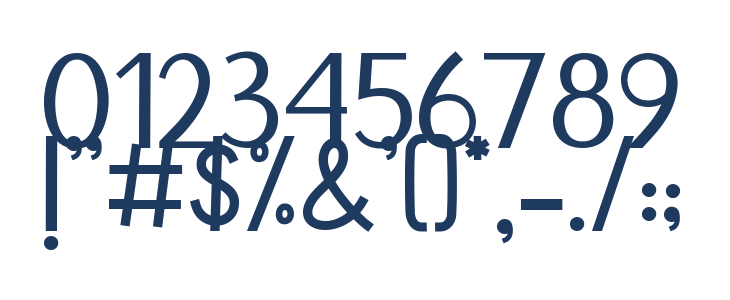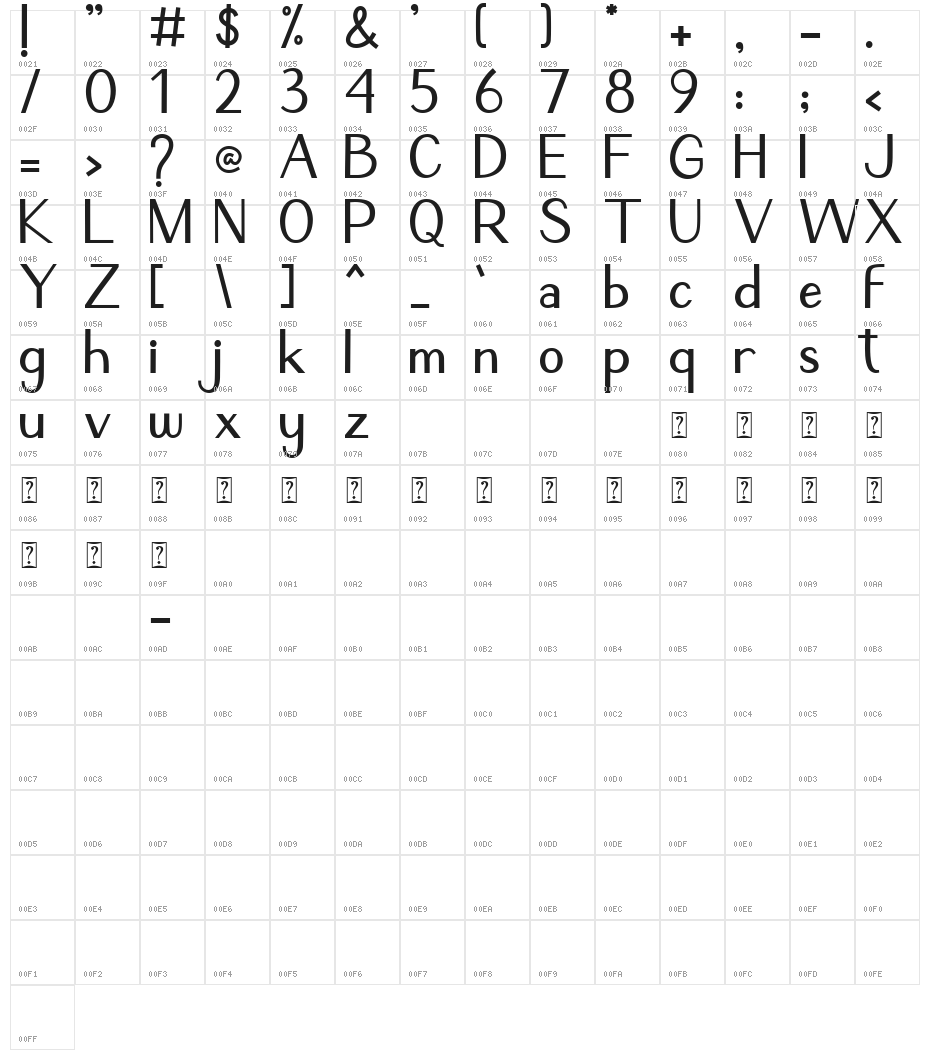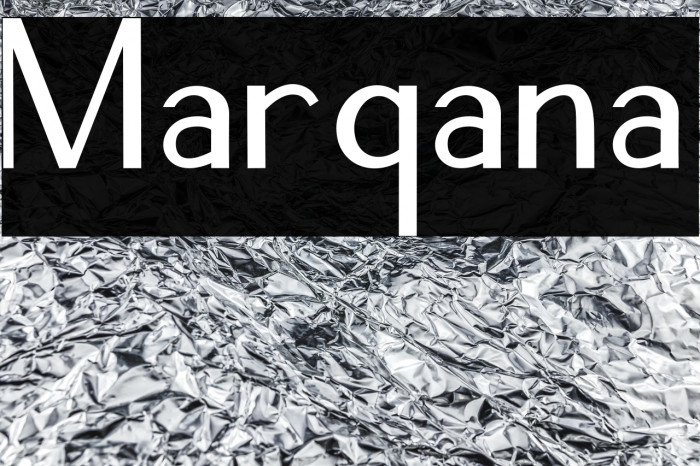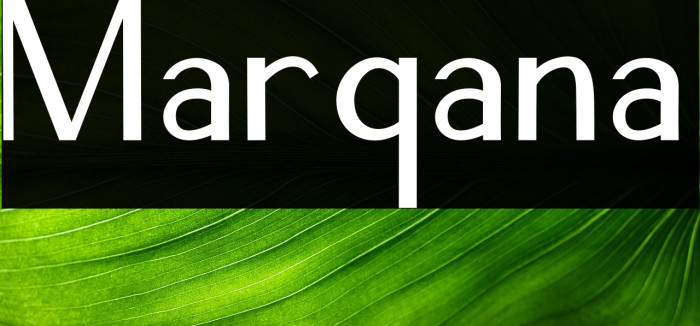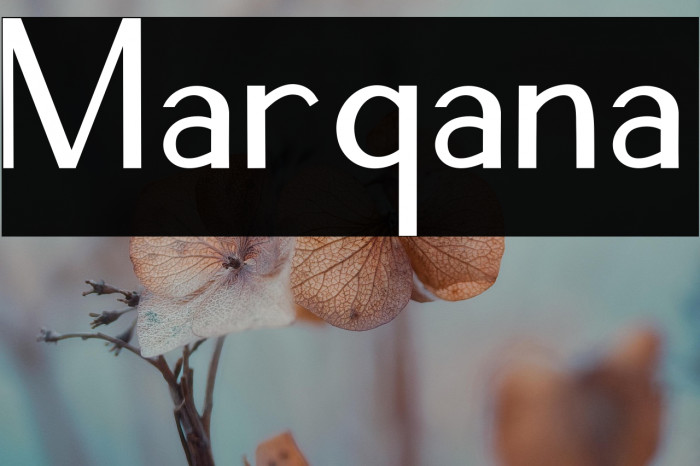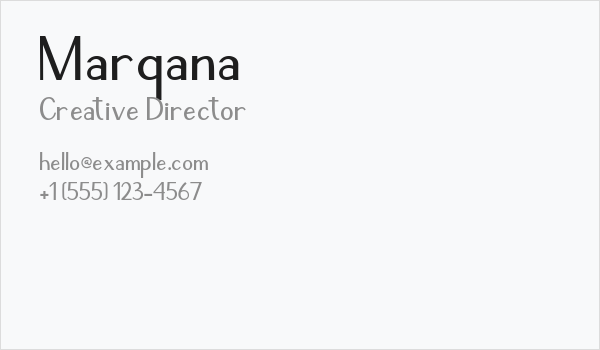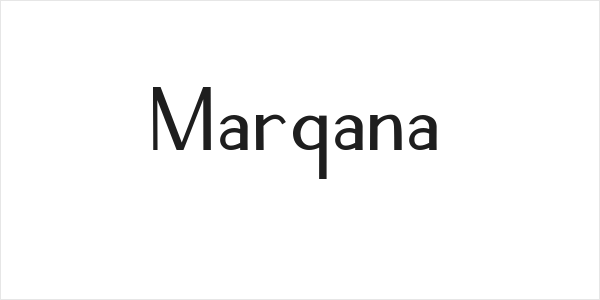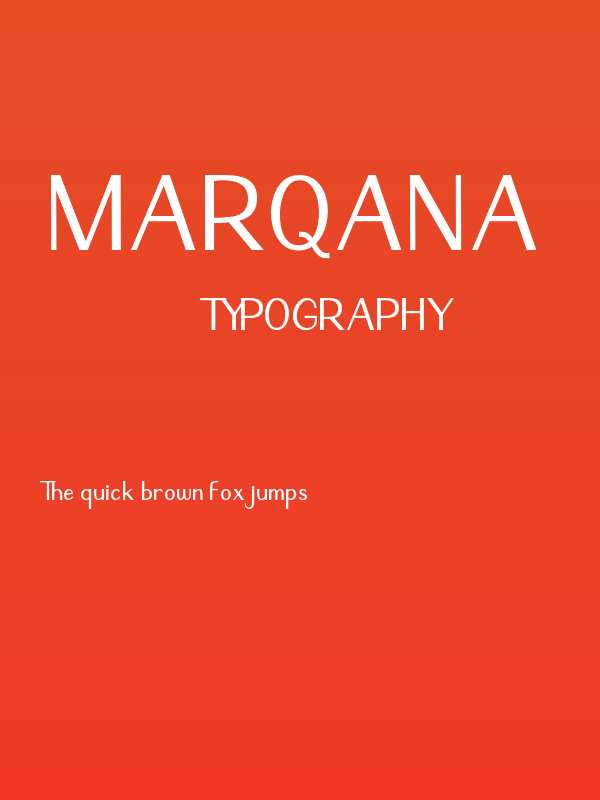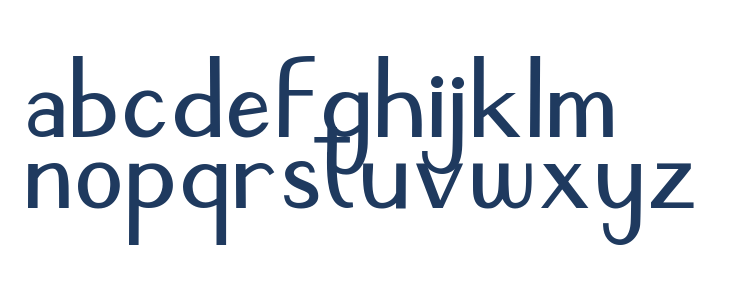
Marqana Font
Marqana Description
This font features a clean and modern sans-serif style with a slightly rounded appearance, giving it a friendly and approachable feel. The uppercase letters are tall and uniform, while the lowercase letters maintain a consistent height, contributing to a balanced and harmonious look. The numerals are clear and easy to read, making them suitable for various applications. Special characters are well-defined, adding versatility to the font. The overall design is sleek and contemporary, making it ideal for both digital and print media.
| Proposed Projects | Ideal for branding, web design, advertising, and editorial projects where a modern and approachable aesthetic is desired. |